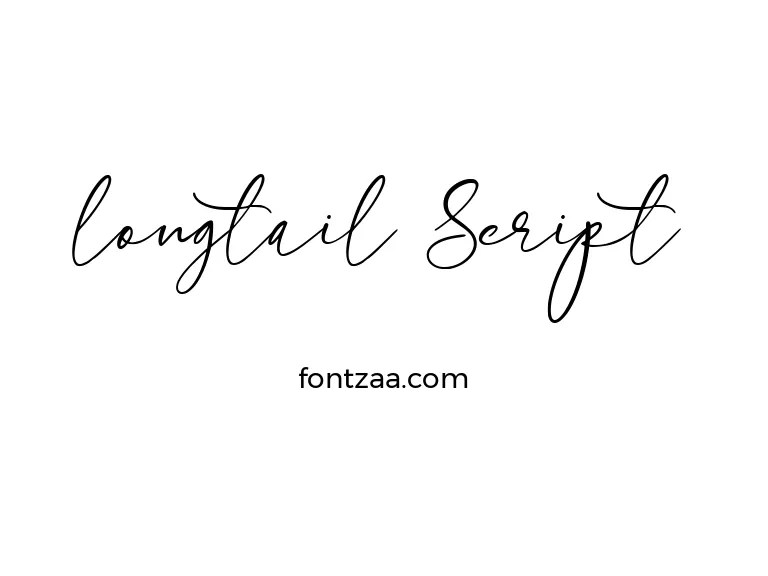
longtail Script Font
longtail Script Font combines distinctive character shapes with a elegant appearance suited to display-focused design. With its distinctive letterforms, longtail Script Font can introduce a elegant character into creative display work. Testing several arrangements before choosing the final version can reveal which characteristics of the typeface work best. Different color combinations can make the same font feel subtle, energetic, premium or highly decorative. Using generous space around the lettering can help the details of the typeface remain visible instead of competing with other elements. The font can be considered for projects such as invitations, wedding stationery, signatures, quotes and elegant branding. For layouts containing longer information, pairing it with a simpler supporting typeface can improve readability and hierarchy. Designers should evaluate the typeface inside the real project because a standalone preview cannot show every possible visual combination. Source metadata currently associates the font with Unknown Publisher. The available licensing label is Free for personal use, but redistribution and commercial permissions should always be confirmed from the original source. The most effective treatment will vary by project, so designers should compare several versions before finalizing the artwork.
With its distinctive letterforms, longtail Script Font can introduce a elegant character into headlines, branding and promotional layouts. Using generous space around the lettering can help the details of the typeface remain visible instead of competing with other elements. The font can work as the primary visual element in a minimal layout or as part of a more detailed composition. Testing several arrangements before choosing the final version can reveal which characteristics of the typeface work best. Its display-focused appearance makes it worth testing in invitations, wedding stationery, signatures, quotes and elegant branding. Print and digital layouts may require different sizing and spacing, so testing the actual output dimensions is recommended. Previewing the final layout on both large and small screens helps identify spacing and readability problems early. The designer or publisher information available for this typeface is Unknown Publisher. The available licensing label is Free for personal use, but redistribution and commercial permissions should always be confirmed from the original source. Its final appearance will depend heavily on the surrounding colors, imagery, spacing and supporting typography.
longtail Script Font stands out through its individual shapes and can become an important visual element in digital and print projects. The font can work as the primary visual element in a minimal layout or as part of a more detailed composition. Using generous space around the lettering can help the details of the typeface remain visible instead of competing with other elements. The typeface can change considerably depending on tracking, scale, alignment, background and surrounding imagery. Designers may explore it across invitations, wedding stationery, signatures, quotes and elegant branding, depending on the tone and requirements of the project. Designers should evaluate the typeface inside the real project because a standalone preview cannot show every possible visual combination. For layouts containing longer information, pairing it with a simpler supporting typeface can improve readability and hierarchy. The available source information lists Unknown Publisher as the designer or publisher. The available licensing label is Free for personal use, but redistribution and commercial permissions should always be confirmed from the original source. Testing the font with the actual project text can provide a much better impression than viewing isolated sample characters.
longtail Script Font Family
Designers can use the longtail Script Font Family in several ways by varying scale, alignment, background treatment and supporting typography. With its distinctive letterforms, longtail Script Font can introduce a elegant character into font-family exploration. Different color combinations can make the same font feel subtle, energetic, premium or highly decorative. Testing several arrangements before choosing the final version can reveal which characteristics of the typeface work best. Using generous space around the lettering can help the details of the typeface remain visible instead of competing with other elements. The font can be considered for projects such as invitations, wedding stationery, signatures, quotes and elegant branding. Designers should evaluate the typeface inside the real project because a standalone preview cannot show every possible visual combination. Print and digital layouts may require different sizing and spacing, so testing the actual output dimensions is recommended. According to the available font information, the typeface is associated with Unknown Publisher. The listed license is Free for personal use, although users should still review the original font package before commercial use. Its final appearance will depend heavily on the surrounding colors, imagery, spacing and supporting typography.
longtail Script Font Alphabet Preview
Choosing Supporting Fonts for longtail Script Font
The visual character of longtail Script Font makes it an interesting choice for designers working on combining the display font with supporting typefaces. Different color combinations can make the same font feel subtle, energetic, premium or highly decorative. Testing several arrangements before choosing the final version can reveal which characteristics of the typeface work best. Its letter shapes become especially noticeable at larger sizes, where spacing and proportions can be explored more clearly. The font can be considered for projects such as invitations, wedding stationery, signatures, quotes and elegant branding. A clean serif or sans serif companion can handle smaller text while this font remains focused on headlines and key messages. Print and digital layouts may require different sizing and spacing, so testing the actual output dimensions is recommended. Source metadata currently associates the font with Unknown Publisher. The listed license is Free for personal use, although users should still review the original font package before commercial use. Testing the font with the actual project text can provide a much better impression than viewing isolated sample characters.
Visual Features of longtail Script Font
With its distinctive letterforms, longtail Script Font can introduce a elegant character into the visual characteristics and design personality of the typeface. The font can work as the primary visual element in a minimal layout or as part of a more detailed composition. Using generous space around the lettering can help the details of the typeface remain visible instead of competing with other elements. Its letter shapes become especially noticeable at larger sizes, where spacing and proportions can be explored more clearly. Possible applications include invitations, wedding stationery, signatures, quotes and elegant branding. Previewing the final layout on both large and small screens helps identify spacing and readability problems early. Designers should evaluate the typeface inside the real project because a standalone preview cannot show every possible visual combination. The designer or publisher information available for this typeface is Unknown Publisher. The available licensing label is Free for personal use, but redistribution and commercial permissions should always be confirmed from the original source. Testing the font with the actual project text can provide a much better impression than viewing isolated sample characters.
Social Media Ideas With longtail Script Font
With its distinctive letterforms, longtail Script Font can introduce a elegant character into posters, campaigns, thumbnails and promotional content. Using generous space around the lettering can help the details of the typeface remain visible instead of competing with other elements. Testing several arrangements before choosing the final version can reveal which characteristics of the typeface work best. Its letter shapes become especially noticeable at larger sizes, where spacing and proportions can be explored more clearly. Designers may explore it across invitations, wedding stationery, signatures, quotes and elegant branding, depending on the tone and requirements of the project. For layouts containing longer information, pairing it with a simpler supporting typeface can improve readability and hierarchy. A clean serif or sans serif companion can handle smaller text while this font remains focused on headlines and key messages. The available source information lists Unknown Publisher as the designer or publisher. The listed license is Free for personal use, although users should still review the original font package before commercial use. The most effective treatment will vary by project, so designers should compare several versions before finalizing the artwork.